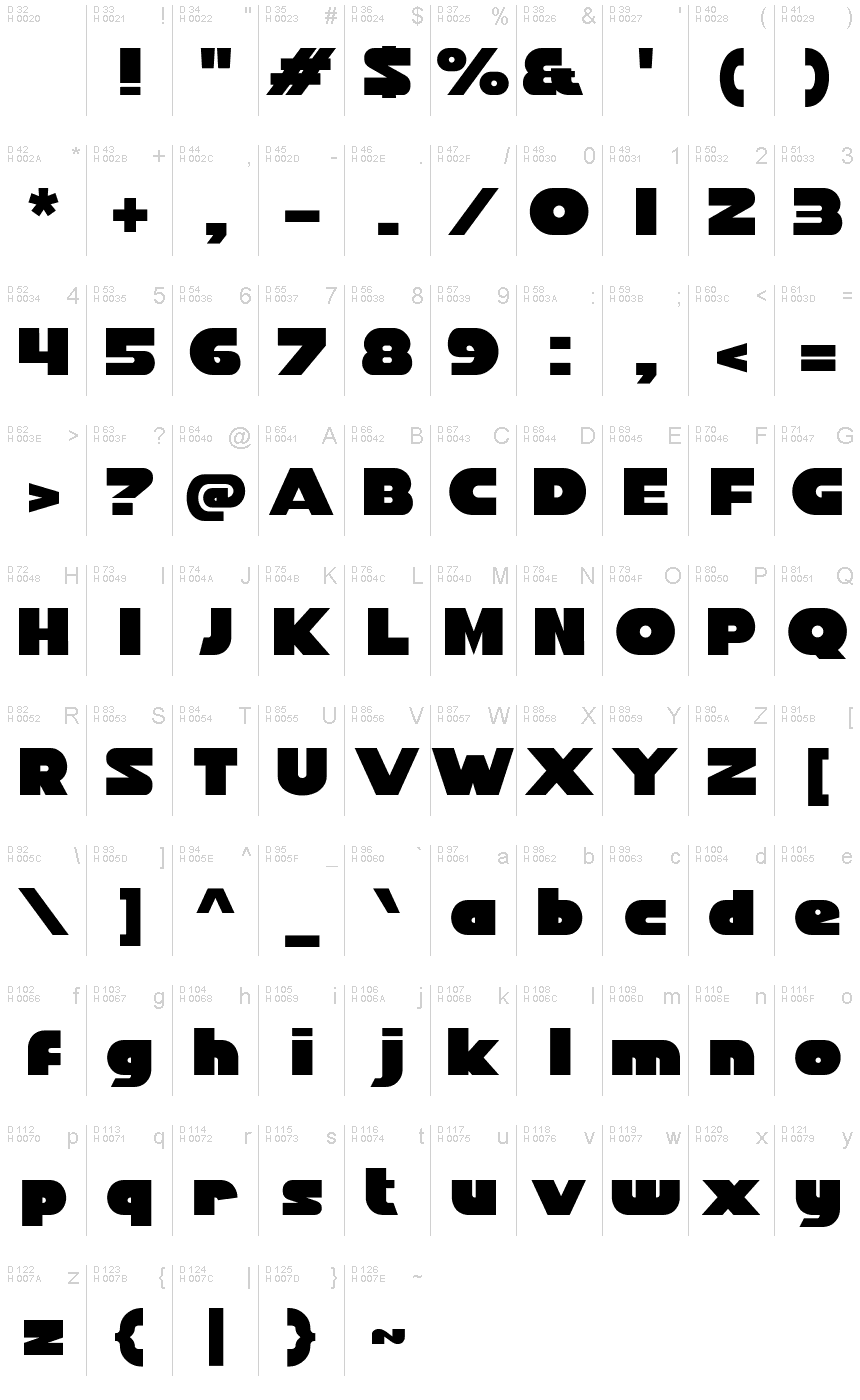
Fun Park 678
Fun Park 678, from the Fun Park font family designed by wep, is a sans serif typeface that exudes a bold and dynamic energy. Its extra-bold weight makes it an attention-grabber, ensuring high-impact visibility across various applications. The font's expansive curves and sturdy structure inject a playful yet robust character into any design.
This unique typeface thrives in contexts that call for a mix of fun and assertiveness—ideal for branding, event posters, or any creative project aiming to convey excitement and approachability. With its contemporary flair, Fun Park 678 has the potential to set the tone for engaging visual narratives and leave a memorable impression on viewers seeking both style and readability.